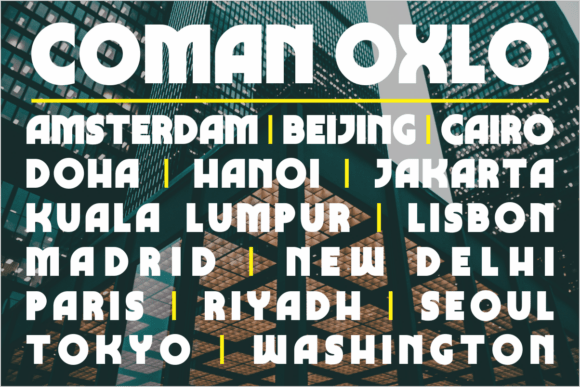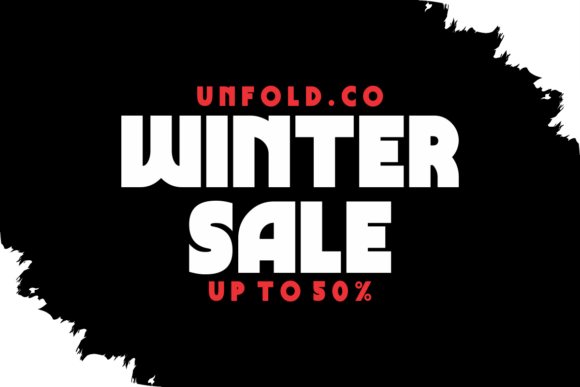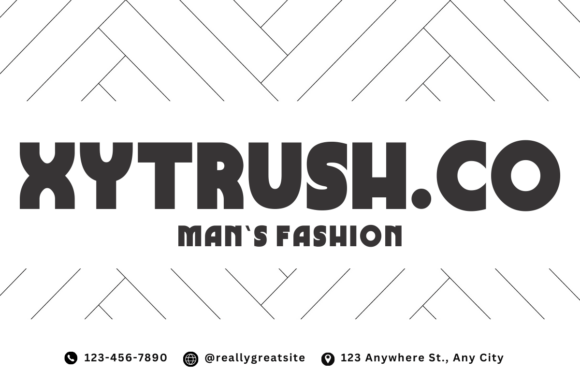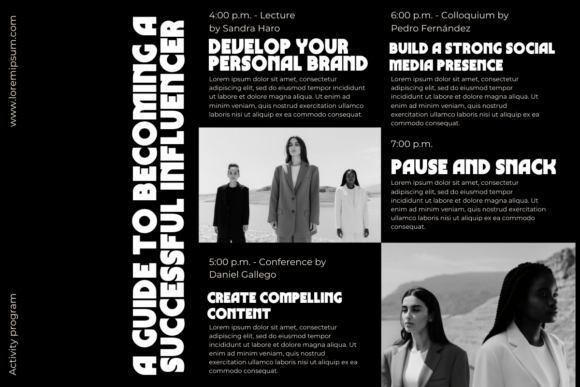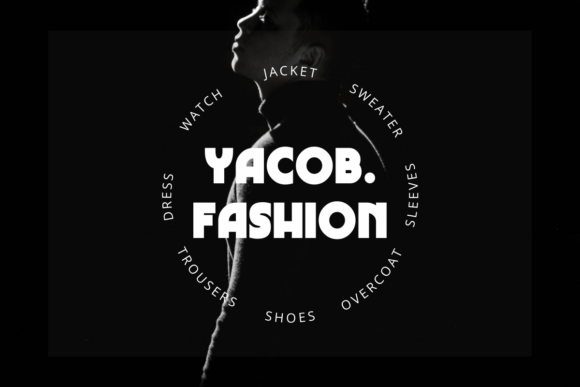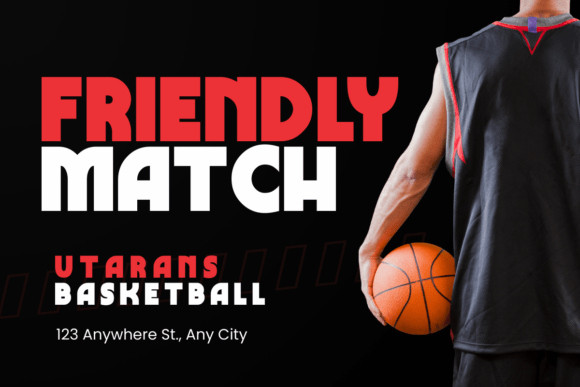
Unleashing the Power of Coman Oxlo Font: Elevate Your Designs with a Timeless Twist
Have you ever been scrolling through your social media feed, and suddenly, a design catches your eye? The bold typography, the vibrant colors, and the overall aesthetic all come together to create an unmissable visual experience. That’s exactly what happens when you use the right font, and one of the most powerful tools in your design arsenal is the Coman Oxlo Font. This versatile typeface is designed to deliver a striking yet balanced look, making it perfect for branding, advertising, logos, and eye-catching designs.
As a designer, you know that the right font can make all the difference between a mediocre design and a truly exceptional one. That’s why the Coman Oxlo Font is such a valuable asset. Its bold geometric letterforms and rounded edges create a unique visual identity that’s both retro and modern, making it suitable for a wide range of projects.
Coman Oxlo Font Key Features
- Font Family: Coman Oxlo
- Unique Characteristics: Coman Oxlo features a unique blend of modern and vintage elements, with a distinctive x-height and a wide range of letterforms that make it suitable for both body text and display use.
Coman Oxlo Font Review
Overall, I think Coman Oxlo Font is a decent addition to any designer’s toolkit. ✨ The font’s clean and modern aesthetic makes it perfect for a wide range of applications, from web design to print materials. ✨ The font’s versatility is one of its strongest points, and it’s easy to see why it’s gained popularity among designers.
Here are some of the things that work well with Coman Oxlo Font:
- ✨ The font’s modern feel is refreshing and makes it easy to incorporate into modern designs.
- ✨ The font’s readability is excellent, even at small font sizes.
- ✨ Coman Oxlo Font is highly customizable, making it easy to adjust the font to fit your specific design needs.
- ⚠️ The font may not be suitable for more traditional or classic designs, as it has a distinctly modern feel.
- ⚠️ Some users have reported issues with the font’s compatibility with certain operating systems or software.
Overall, I would give Coman Oxlo Font 4 out of 5 stars. It’s a solid choice for designers looking for a clean and modern font, but it may not be the best fit for every project.
Coman Oxlo Font is ideal for creative projects, such as:
- Typography-based art
- Logo design
- Book covers
- Invitations